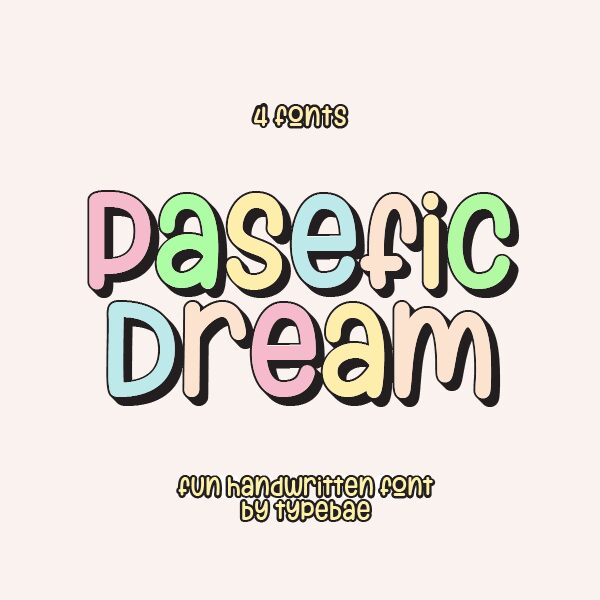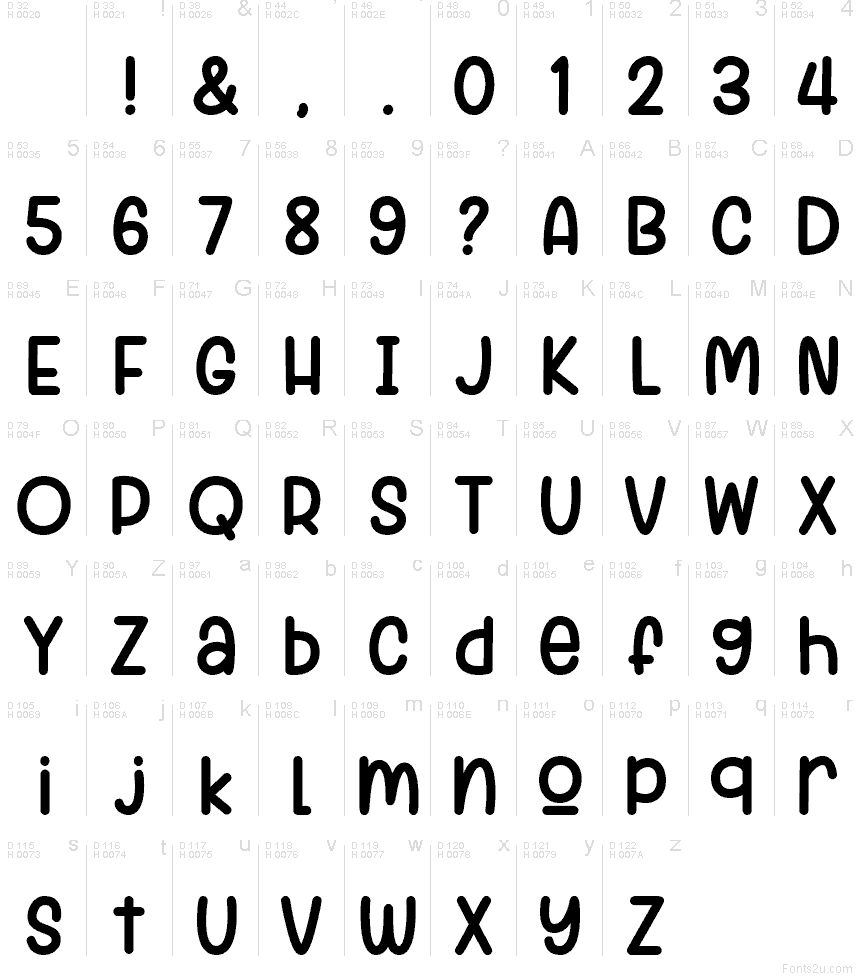
Pasefic Dream
Pasefic Dream font by Typebae Foundry is a free cartoon display typeface that feels like it’s been drawn with a chunky marker on a sunny afternoon. Its rounded, slightly wobbly letters and soft, inky edges give every word a hand-made, storybook warmth, while the tight rhythm keeps text readable in short bursts. There’s a casual bounce to the shapes that makes them feel friendly and approachable instead of chaotic.
Using Pasefic Dream, you can bring playful energy to kids’ book covers, classroom posters, birthday invitations, YouTube thumbnails, game titles, and character-driven logos. This free font shines at larger sizes, where its quirky outlines and organic curves really pop; pair it with a clean sans serif for small supporting text to keep your layouts clear and fun.